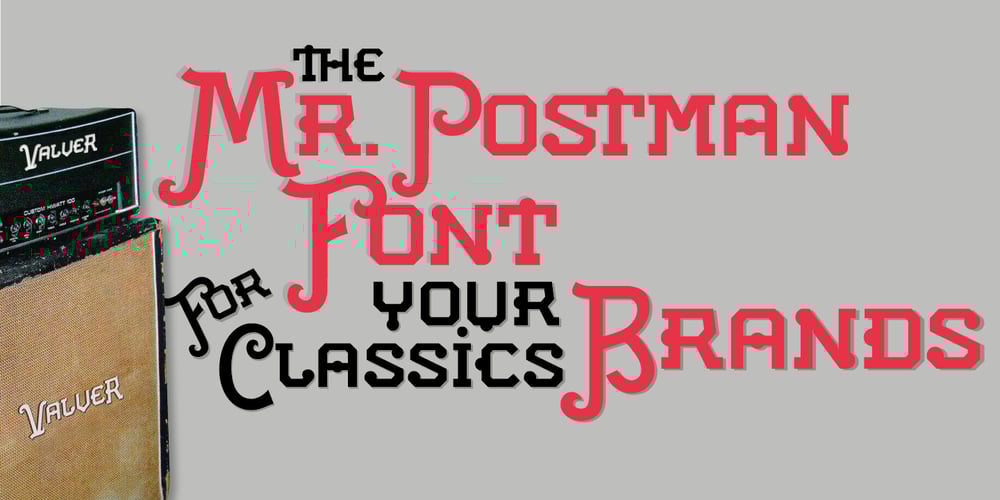
Postman
Postman font
Postman Font Family was designed by Juan Ignacio Siwak and published by Juan I. Siwak. Postman contains 1 styles and family package options. Postman is a typeface inspired by old documents, banknotes and leading product brands. It has cursive and elegant capital letters and its lowercase letters are actually small caps of geometric shapes as if they were made of metal and nailed with bolts. It is ideal for classic products that consider nobility and tradition among their virtues. It evokes classic products that lasted over time. Includes OpenType features, like ligatures, alternates, and more.